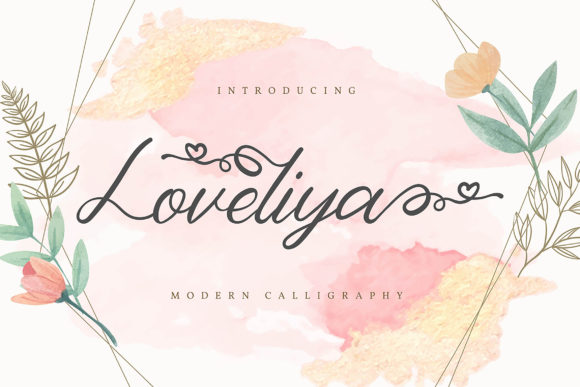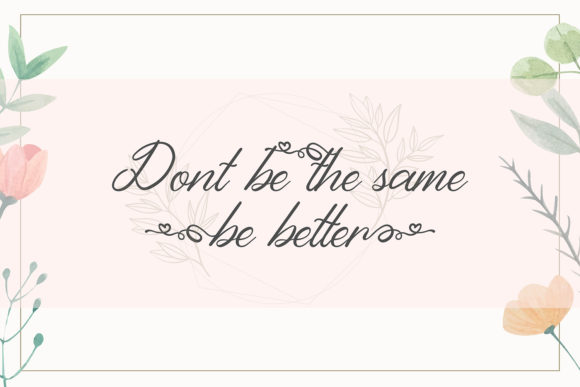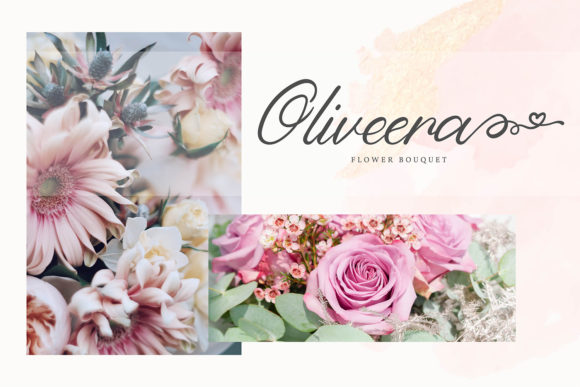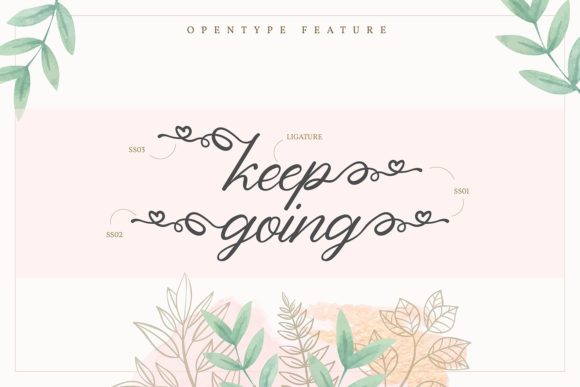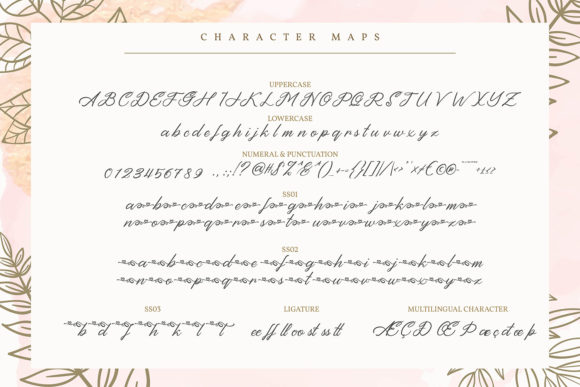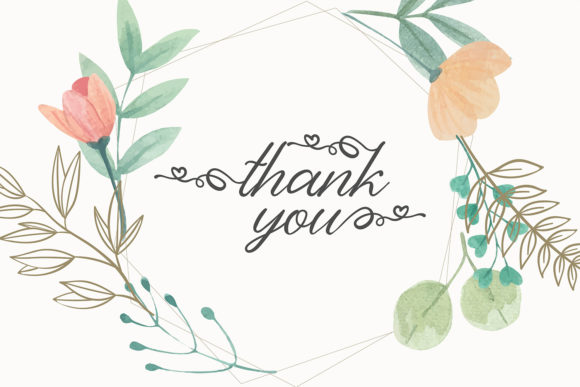
Loveliya Font
About Loveliya Font
Loveliya sounds like a stunning choice! As an elegant script font with a contemporary atmosphere and impeccable form, it brings a timeless and sophisticated touch to your projects. Inspired by classic calligraphy, Loveliya strikes a perfect balance between thin and thick strokes, creating a harmonious and varied look that enhances the beauty of your designs.
The elegance of Loveliya makes it well-suited for a variety of purposes. Whether you’re designing wedding invitations, thank you cards, quotes, greeting cards, logos, or any other project that requires a touch of elegance, Loveliya can elevate the overall aesthetic and create a visually captivating result.
When it comes to wedding invitations, Loveliya can add a sense of romance and refinement. Its contemporary yet classic calligraphy-inspired style brings a touch of sophistication to your designs, setting the stage for a beautiful and memorable wedding celebration. The balanced and varied letterforms of Loveliya enhance the overall elegance of your invitations, making them visually appealing and captivating to recipients.
Thank you cards, quotes, and greeting cards can also benefit from the impeccable form of Loveliya. Its graceful and flowing strokes add a sense of beauty and grace to your messages and sentiments. Whether you’re expressing gratitude, sharing inspirational words, or sending warm wishes, Loveliya can help you create designs that leave a lasting impression.
Logos designed with Loveliya can make a strong and memorable statement. Its contemporary atmosphere and classic calligraphy-inspired look create a visually appealing and sophisticated brand identity. Whether you’re designing a logo for a luxury brand, a boutique, or any other business that desires a touch of elegance, Loveliya can help you achieve a refined and timeless look.
The PUA encoding of Loveliya provides easy access to all the glyphs and swashes, allowing for seamless integration and customization in your designs. You can effortlessly incorporate these additional elements to add flair and embellishments, further enhancing the beauty and versatility of Loveliya.
In summary, Loveliya is an elegant script font that combines a contemporary atmosphere with impeccable form, inspired by timeless classic calligraphy. It enhances the beauty of your projects, whether it’s wedding invitations, thank you cards, quotes, greeting cards, logos, or other design endeavors. With its PUA encoding, you have the freedom to explore the various glyphs and swashes, adding unique touches to your designs. Embrace the elegance and versatility of Loveliya, and let it bring a touch of sophistication to your creative endeavors.